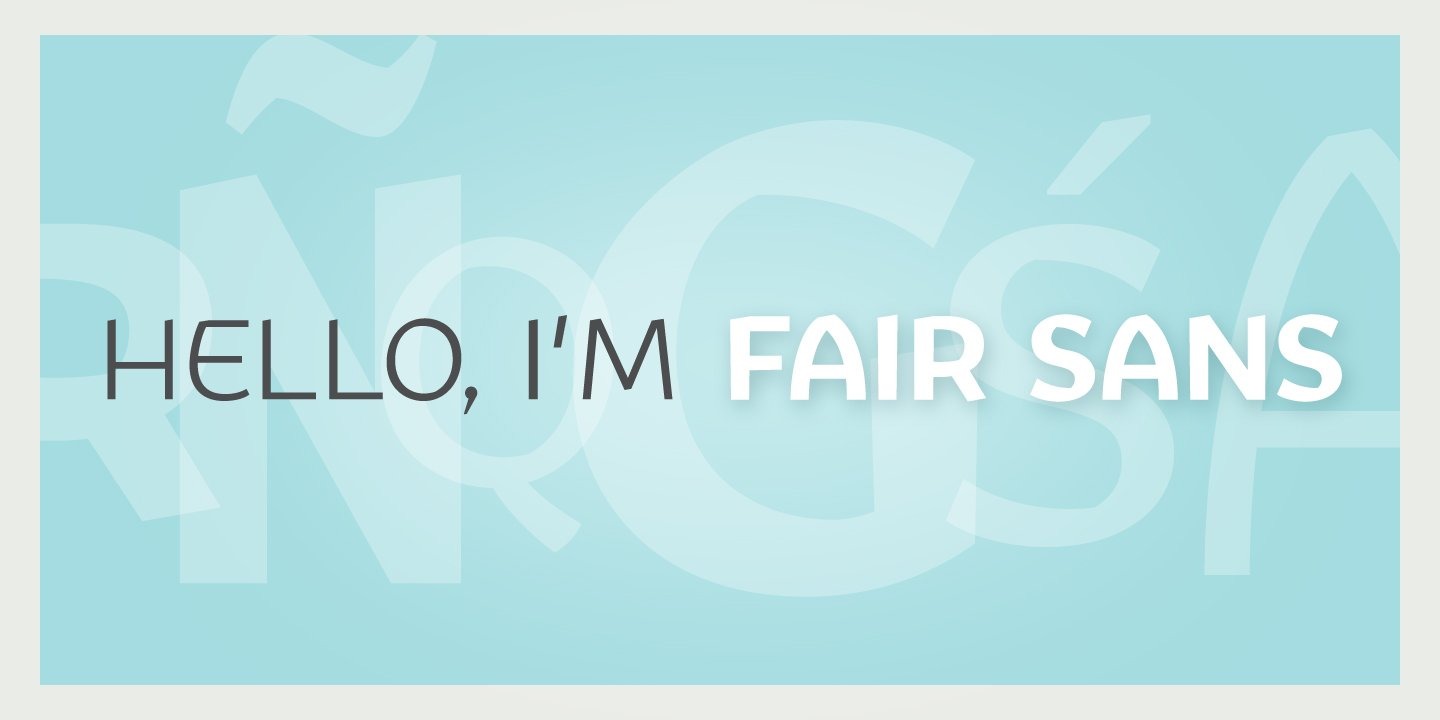
Fair Sans Font Family
Fair Sans Font Family is a distinctive and expressive font crafted to bring personality, structure, and creative energy into your projects. Fair Sans is a distinctive sans-serif with much of its calligraphic structure left intact. Its casual construction and unconventional letterforms create a unicase family that’s relaxed and lively at the same time. Includes four weights and two widths, ligatures, and extras.